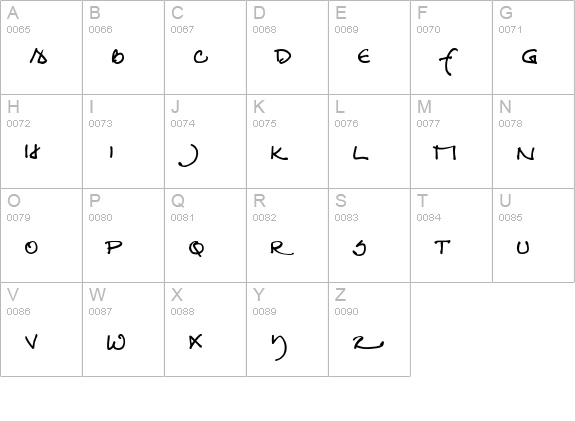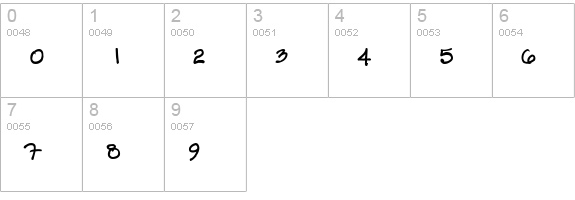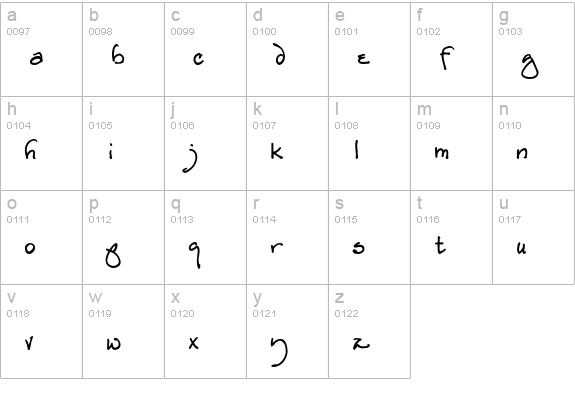
RedStarBold Font Details
Introducing RedStarBold, a captivating and versatile font that is sure to make a bold statement in any design project. With its strong lines and distinctive curves, this font exudes confidence and elegance, making it perfect for everything from logos and branding to headlines and titles. But what sets RedStarBold apart is not just its stunning visual appeal, but also the fact that it is completely free to download. That's right, you can enjoy the power and beauty of RedStarBold without spending a dime. Simply head over to FontsMarket.com, the go-to destination for font enthusiasts, and easily access this incredible font with just a few clicks. Whether you're a professional designer looking to enhance your portfolio or a casual user in search of that perfect font for a personal project, RedStarBold is here to fulfill your every typographic need. Its versatility allows it to seamlessly adapt to various design styles, ensuring that it will always add a touch of sophistication and modernity to your creations. From sleek and minimalist designs to bold and eye-catching layouts, RedStarBold effortlessly commands attention and leaves a lasting impression. Its clean and crisp lines ensure legibility across different mediums, ensuring that your message is conveyed with clarity and impact. So why settle for ordinary when you can have extraordinary? Download RedStarBold today, and let your designs shine with this exceptional font that is freely available at FontsMarket.com. Unleash your creativity and elevate your projects to new heights with the power and beauty of RedStarBold.